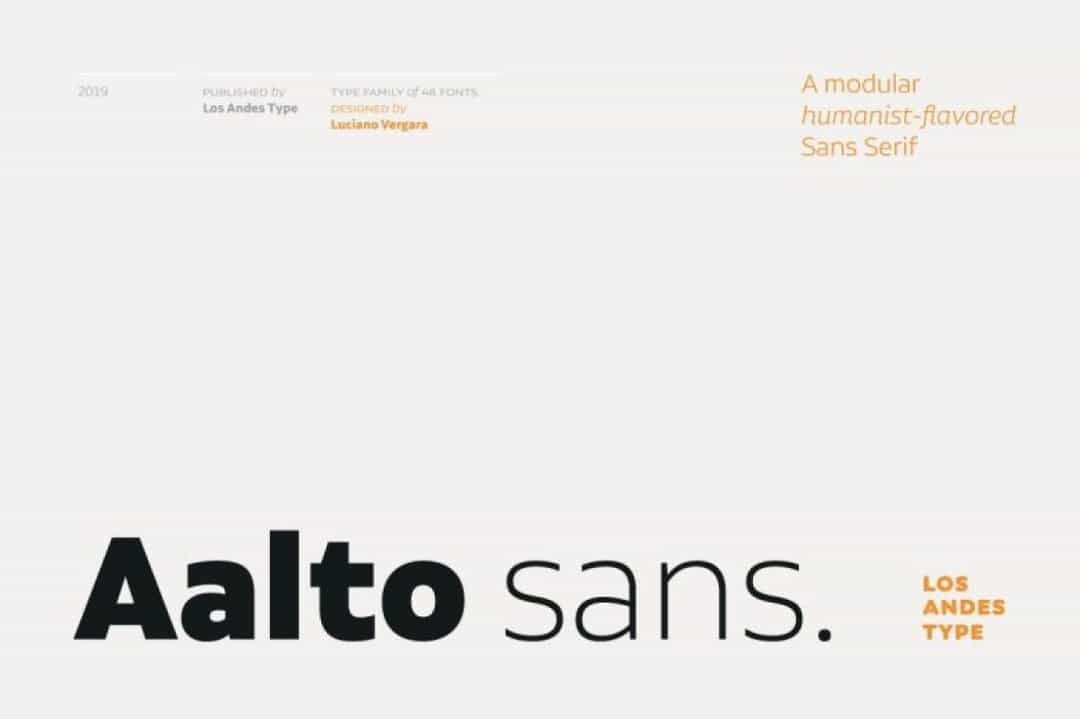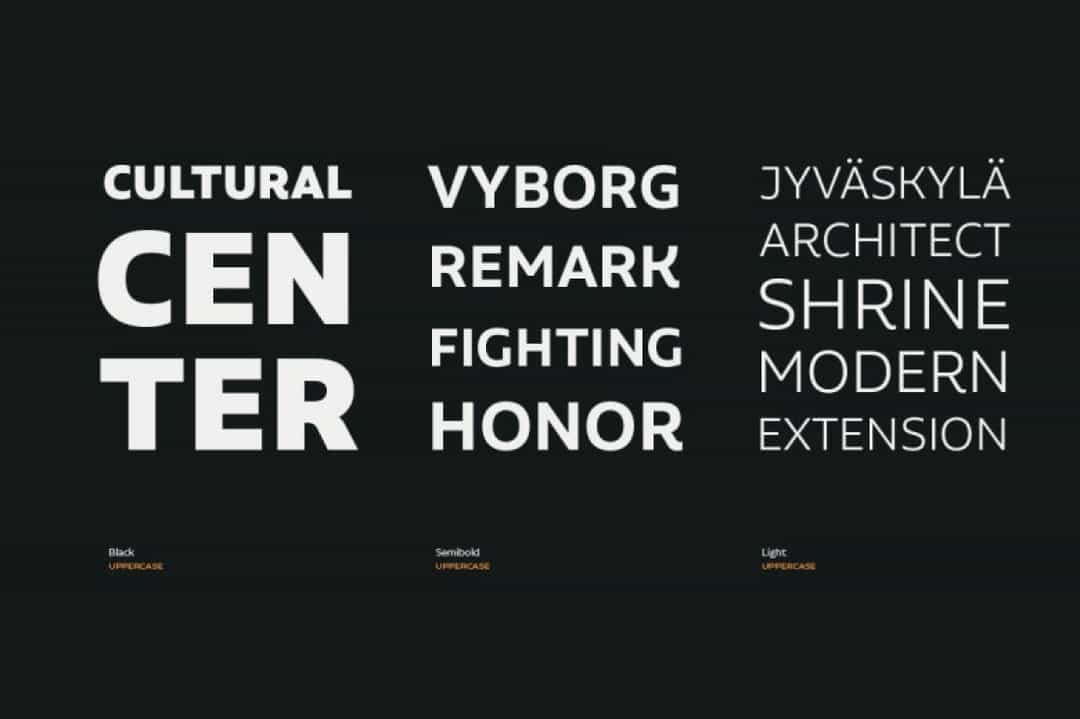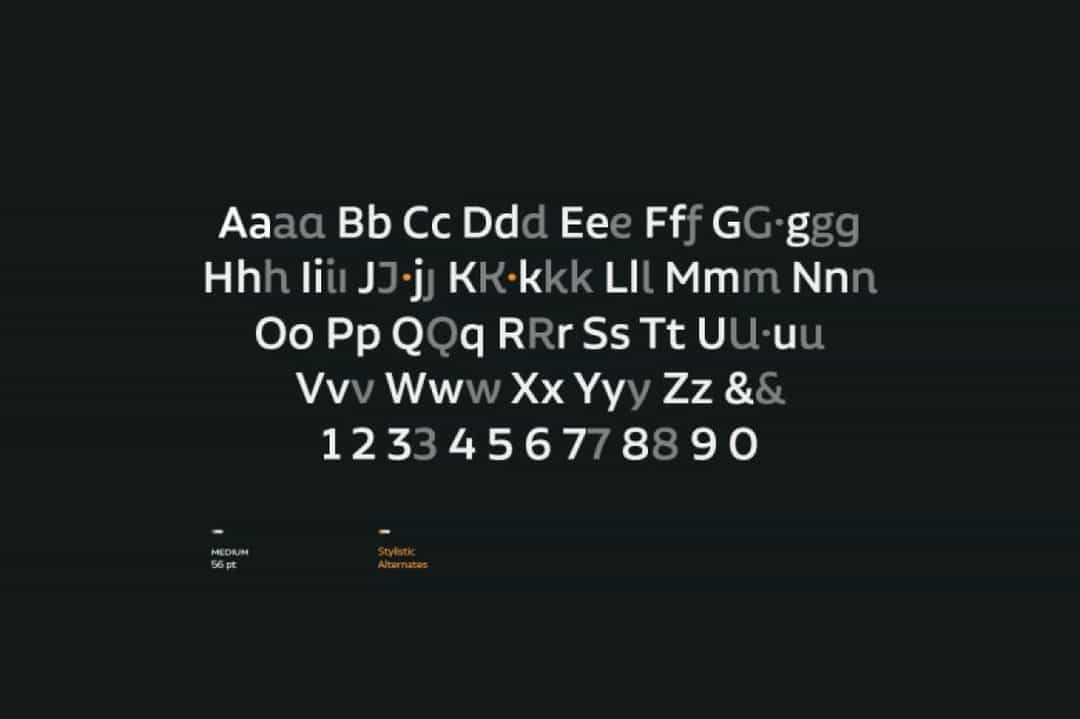
Aalto Sans is a humanist-inspired modular sans serif font designed specifically for corporate use and branding/identity applications. Ideal for medium-length texts, Aalto Sans offers neutral yet inviting characteristics while at the same time being highly contemporary in appearance. Available in 8 weights with matching italics – its entire family being split up into Pro Essential, Pro Alt Essential, and Alt Essential subfamilies giving it 48 distinct styles!